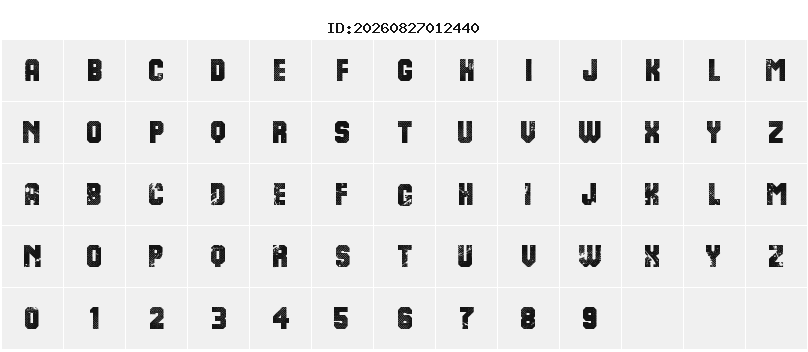
• Font Name: 8th Cargo
About 8th Cargo.ttf
8th Cargo.ttf is a modern, elegant sans-serif font designed for ultimate readability and visual harmony. Perfect for branding, headlines, web design, and print materials.